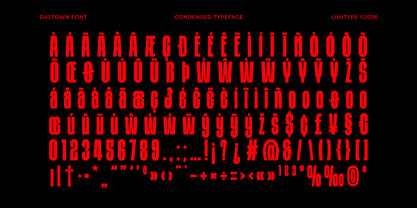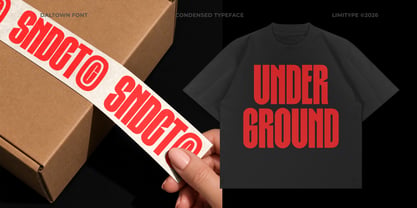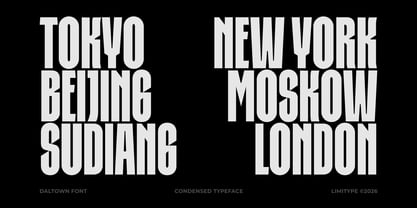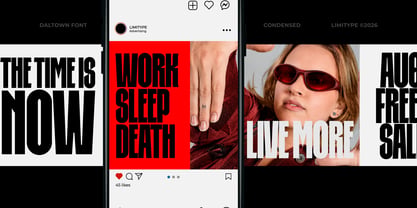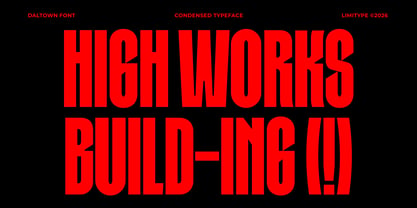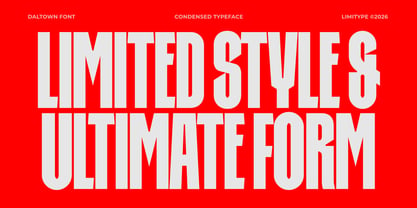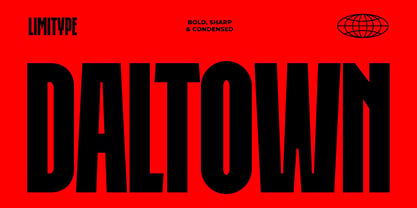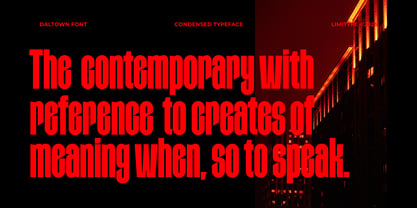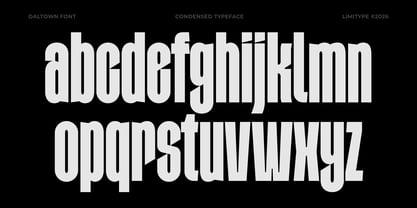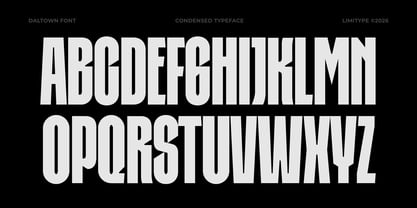
Daltown
Daltown is a bold condensed display font featuring tall, narrow, and tightly packed letterforms with a strong, compact structure. Its powerful proportions create a dramatic visual impact, while sharp details and a clean structure give it a distinctive and confident character. Perfect for headlines, posters, magazine covers, editorial designs, logos, branding, titles, signage, and bold visual identities.
Daltown available with:
• Uppercase
• Lowercase
• Number
• Symbol
• Multilingual